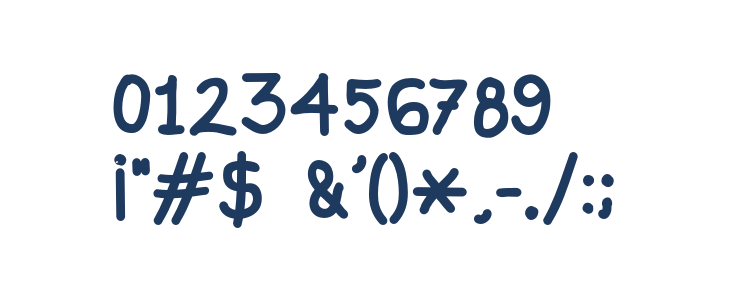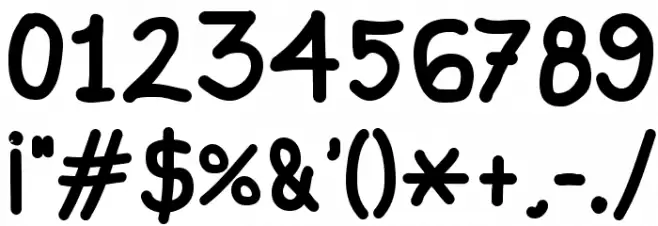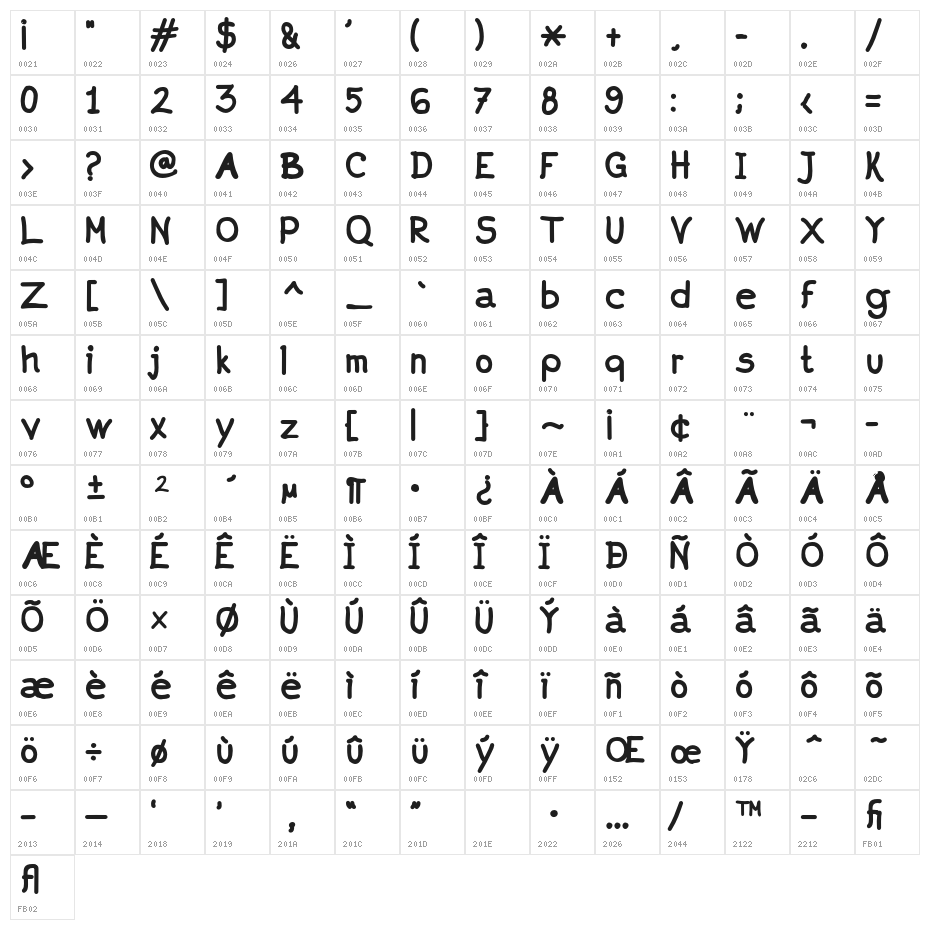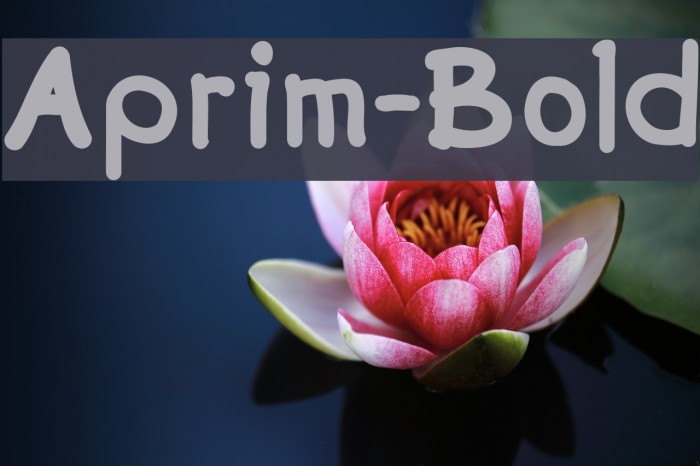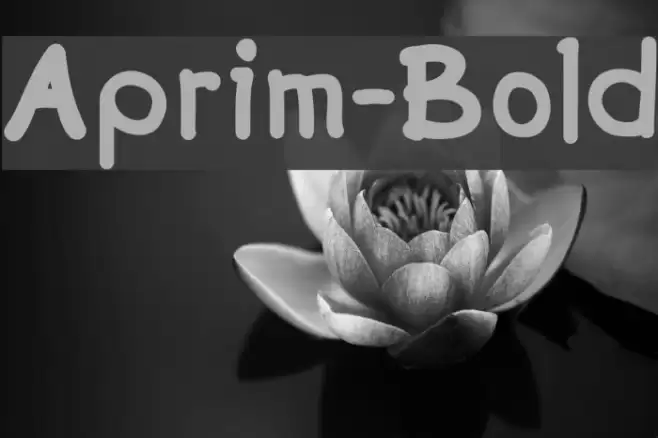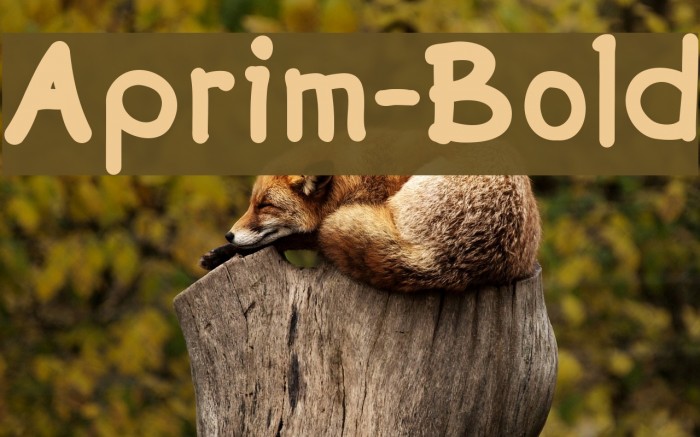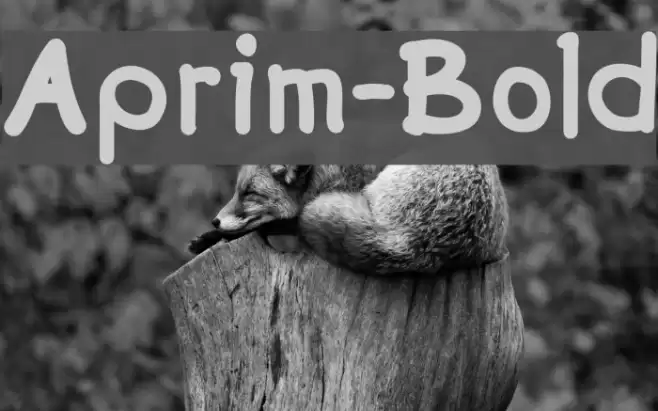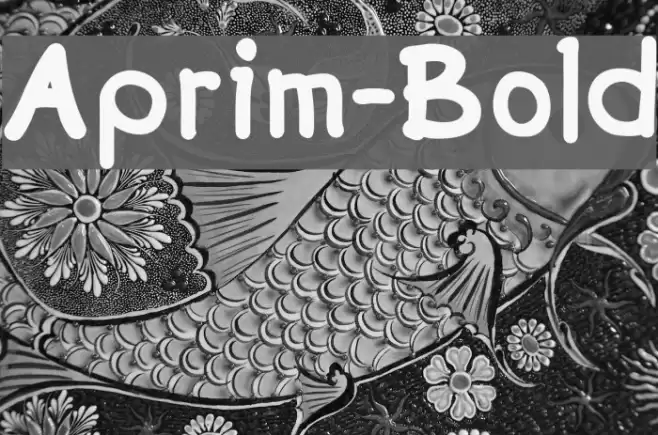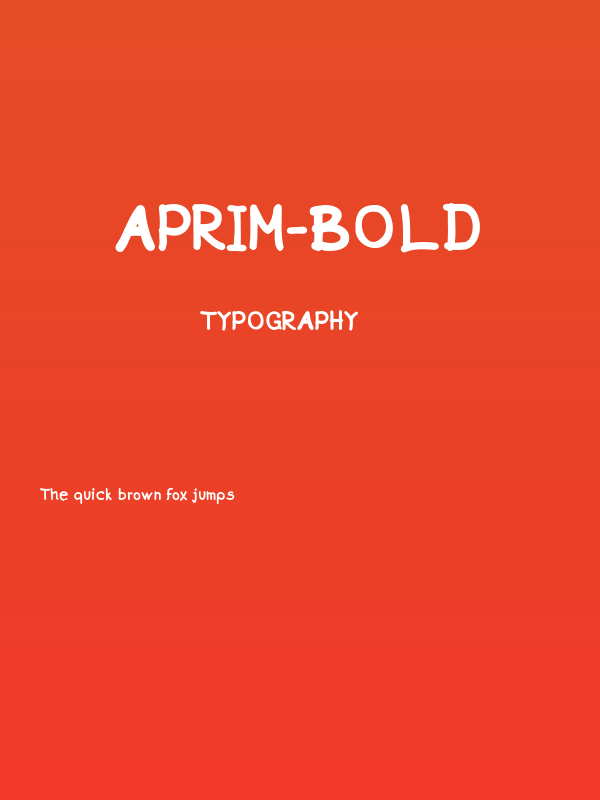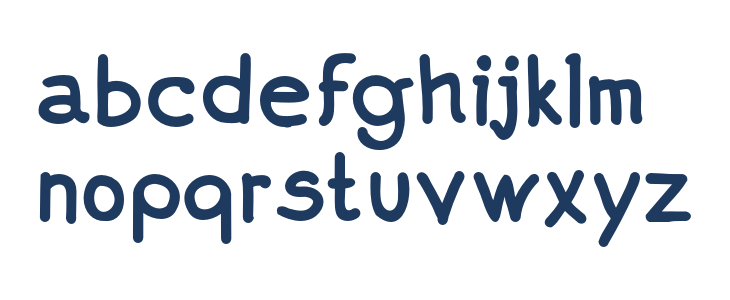
Aprim-Bold Font
Aprim-Bold Description
This font features a playful and rounded style, characterized by its bold and thick strokes. The letters have a hand-drawn appearance, giving them a friendly and approachable feel. The uppercase and lowercase letters are well-proportioned, with a consistent stroke width that adds to the font's cohesive look. The numerals and special characters maintain the same playful aesthetic, making this font versatile for various design projects. Its unique style makes it stand out, while still being legible and clear.